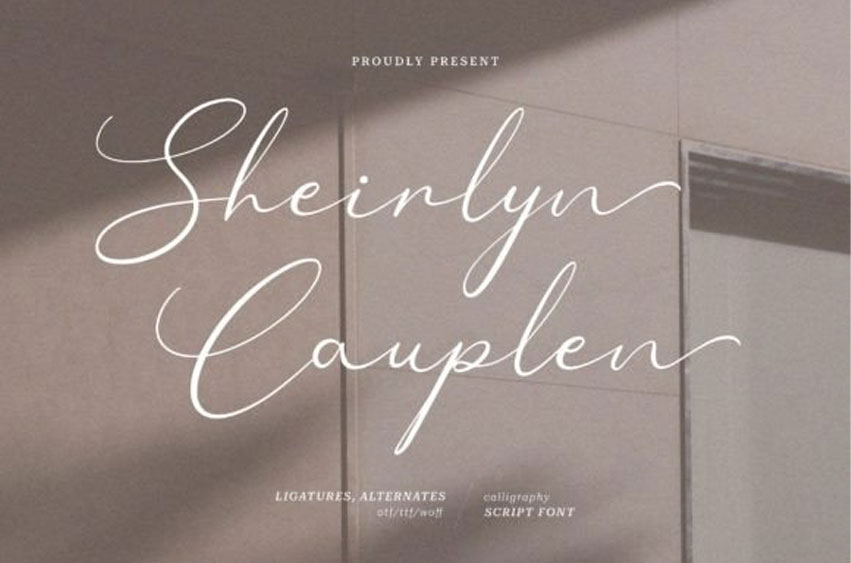
Sheirlyn Cauplen Font
Sheirlyn Cauplen Font is a magical script font carefully created with a touch of elegance.
Whether you’re looking for fonts for Instagram or calligraphy scripts for DIY projects, this font will turn any creative idea into a true piece of art!